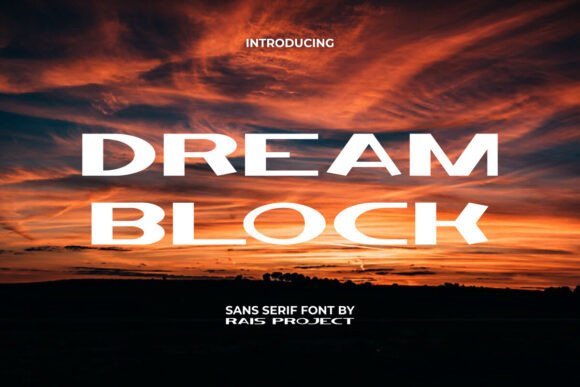
Introduction to Dream Block Font
Dream Block is a futuristic stylish sans serif font.
This font has a large size so that it immediately catches attention and is clearly visible from a distance It will be good for any designs, such as brand image, cover, custom design, greeting card, invitation, label, menu, poster, product packaging, quote, signage, web, and more.